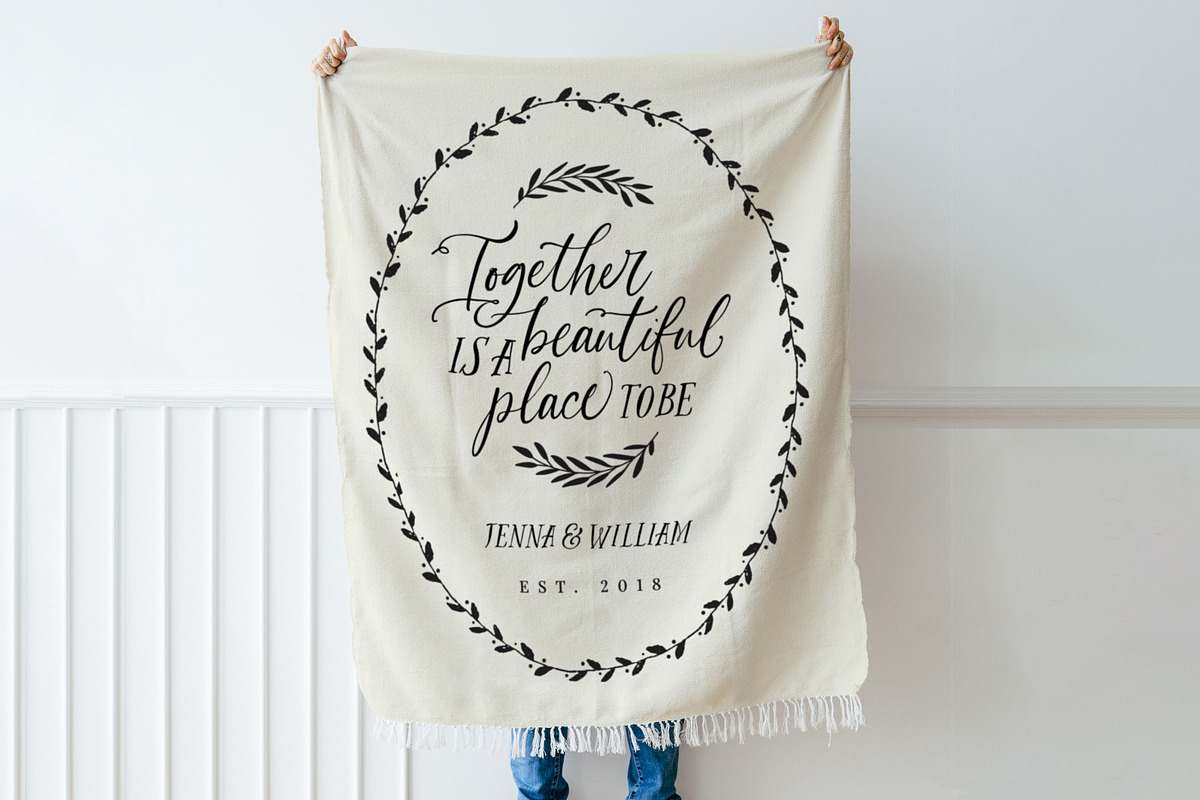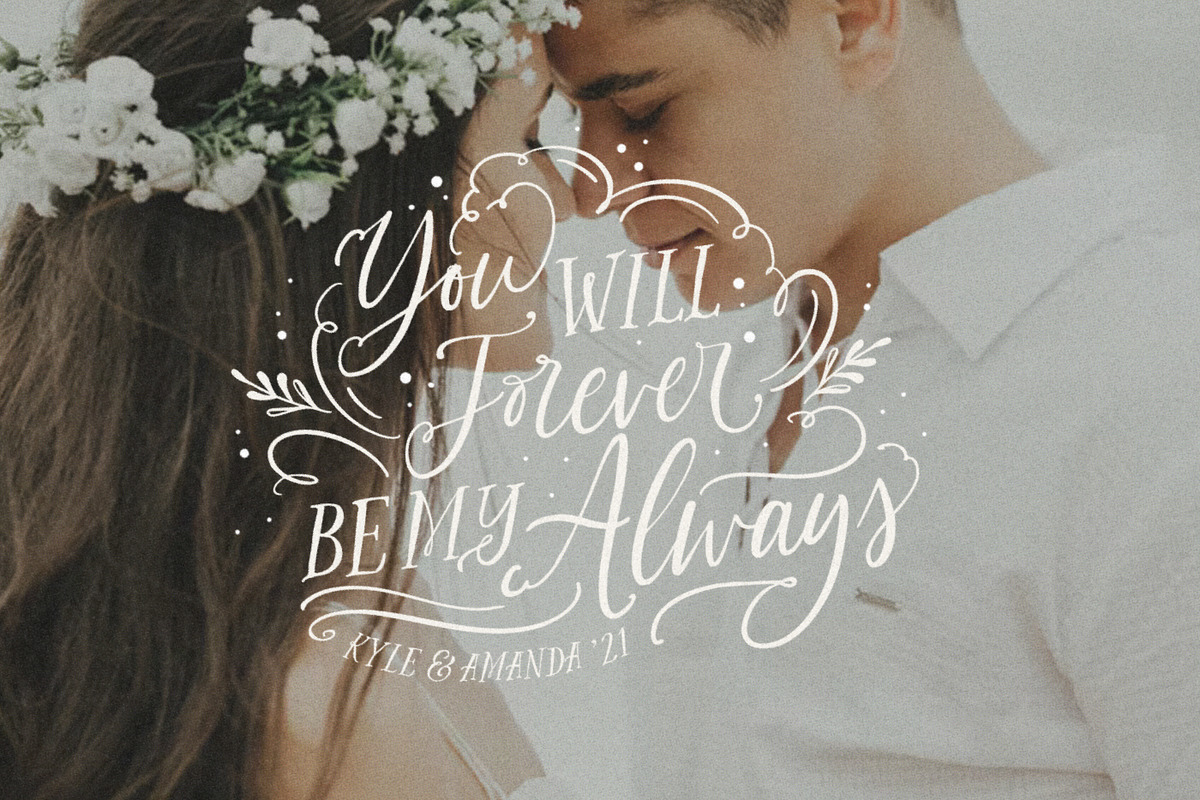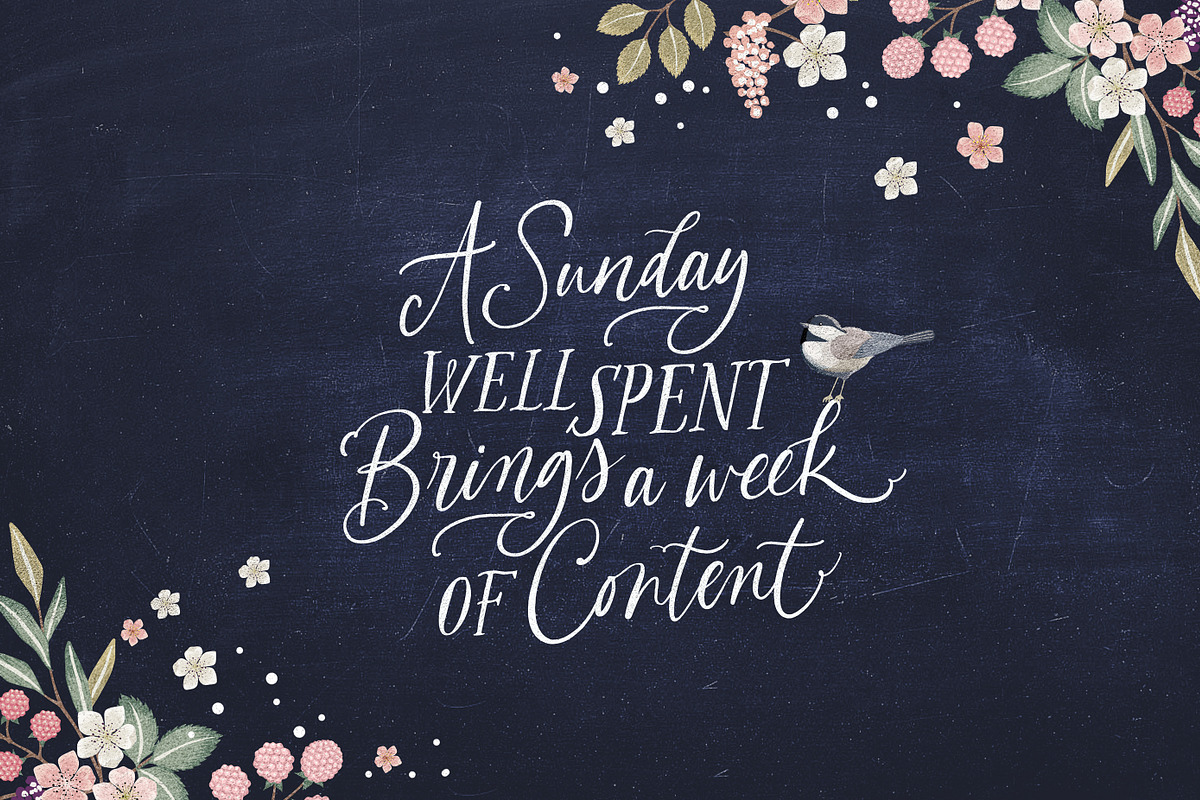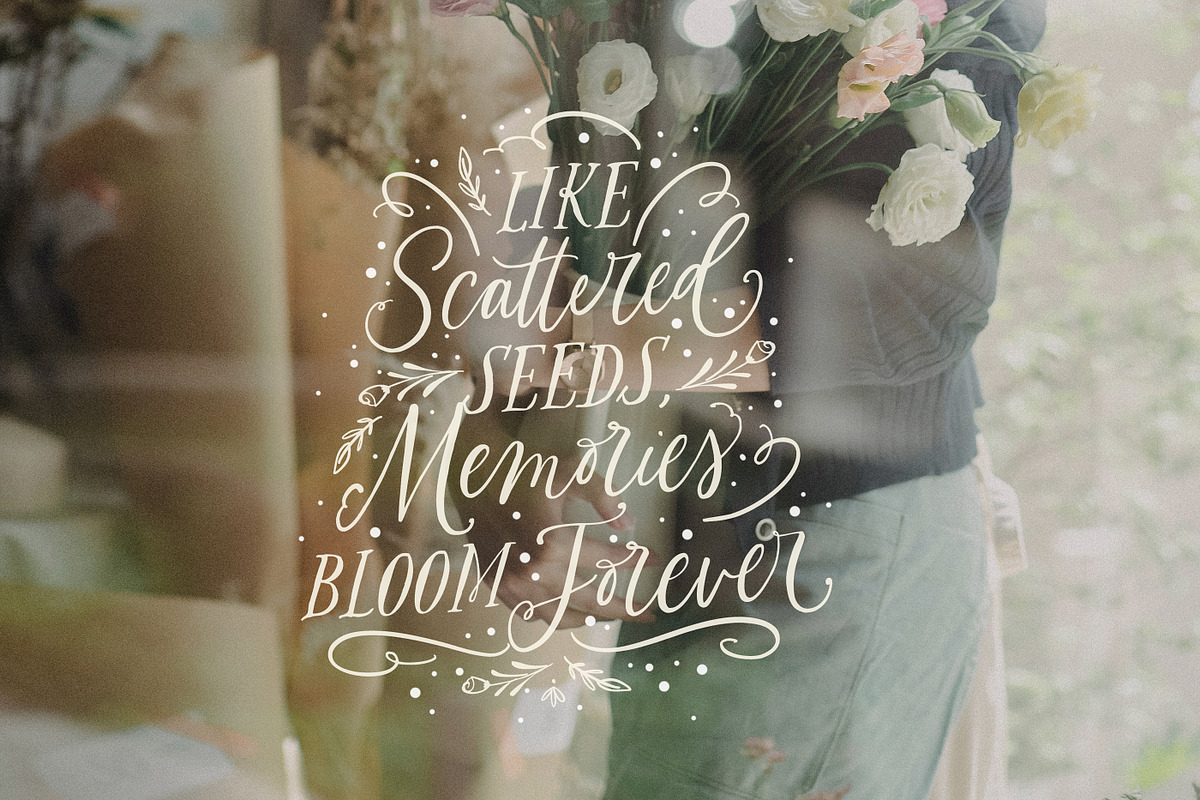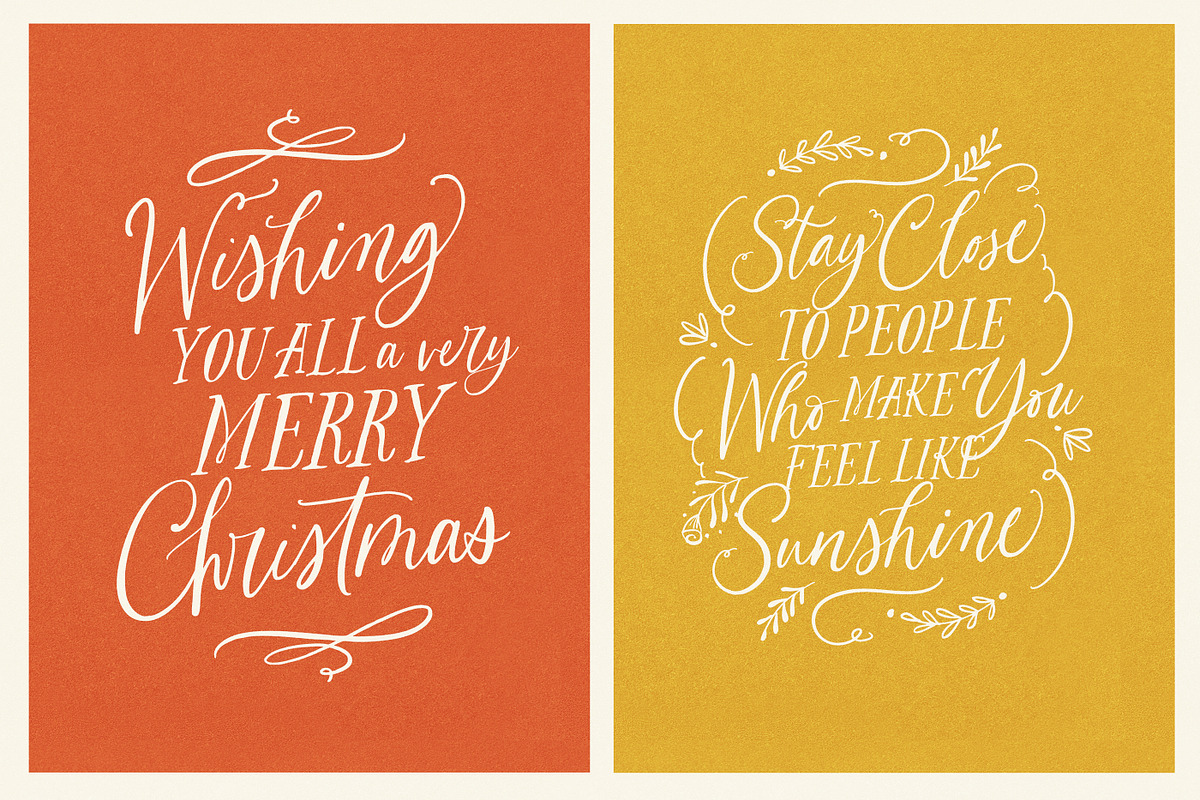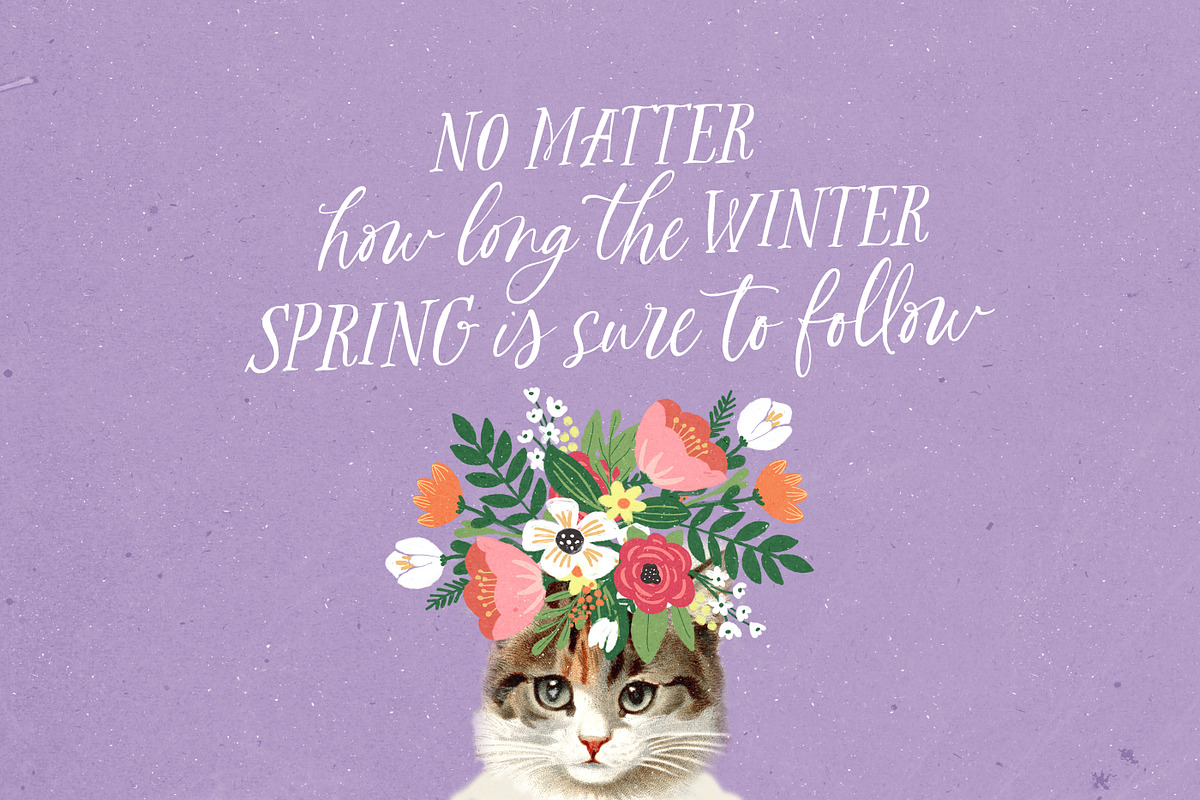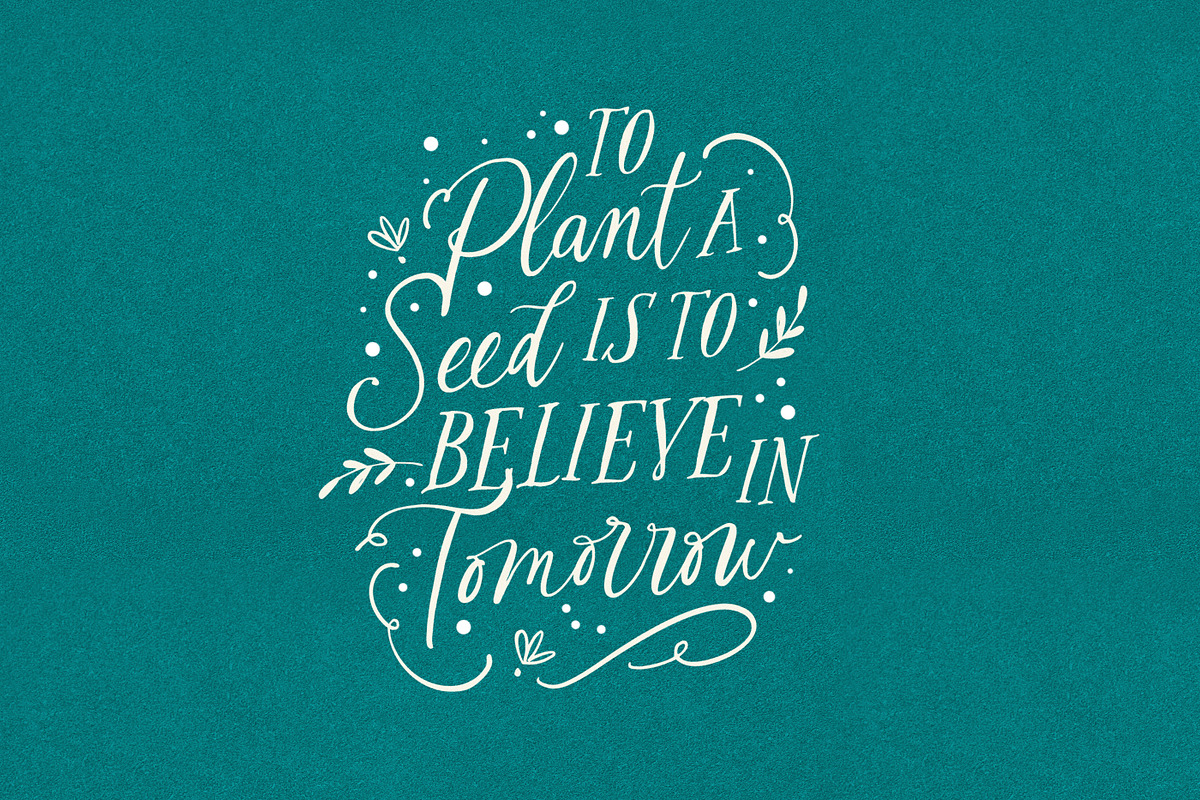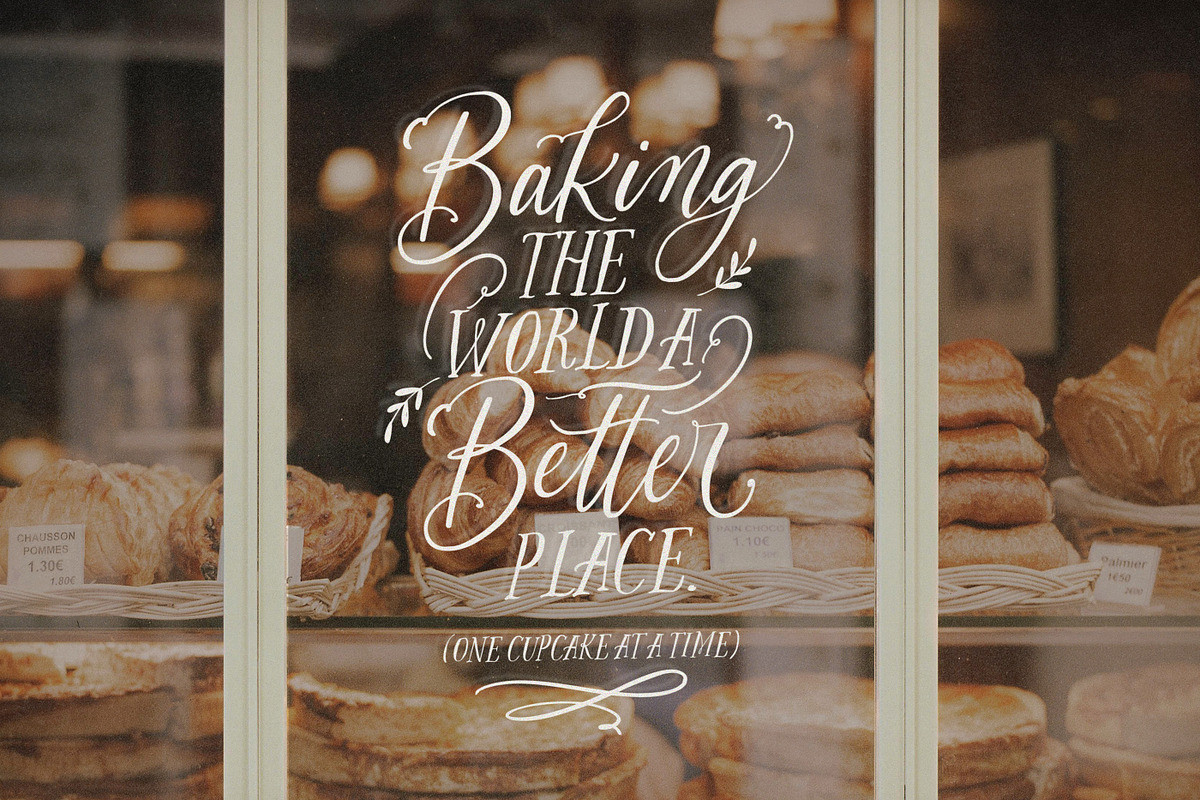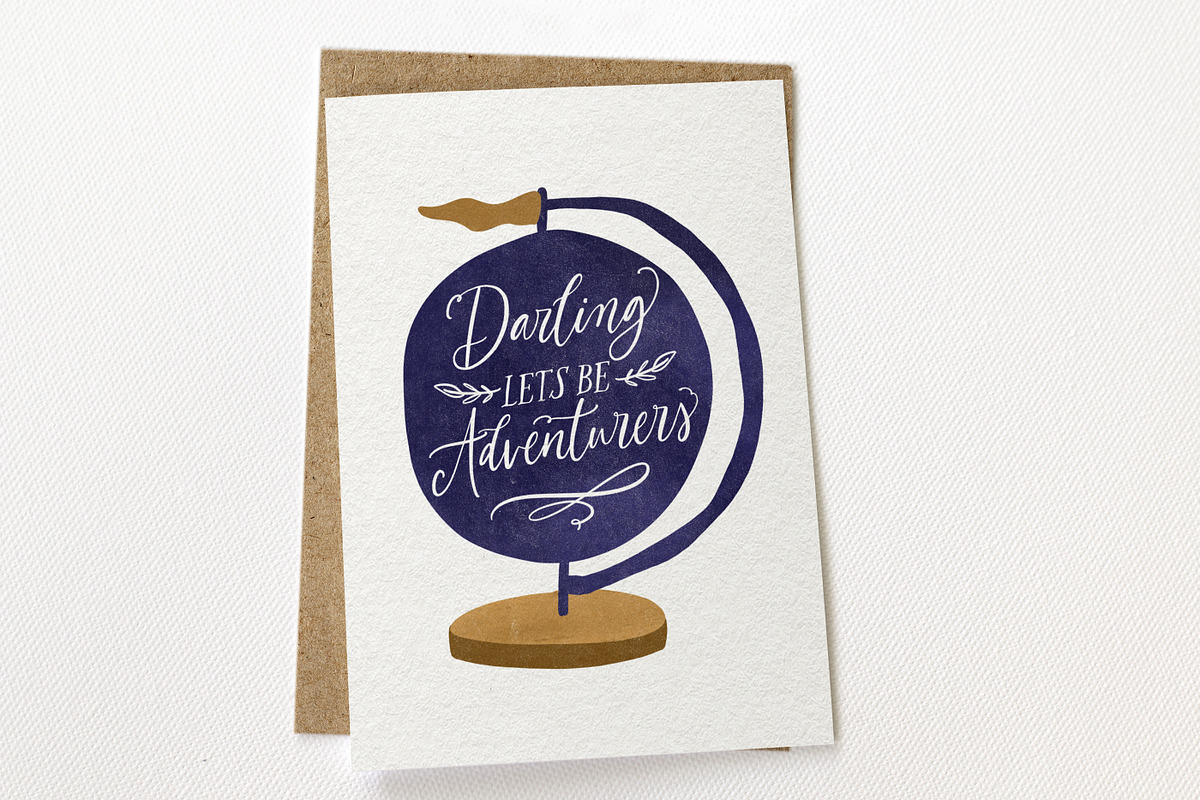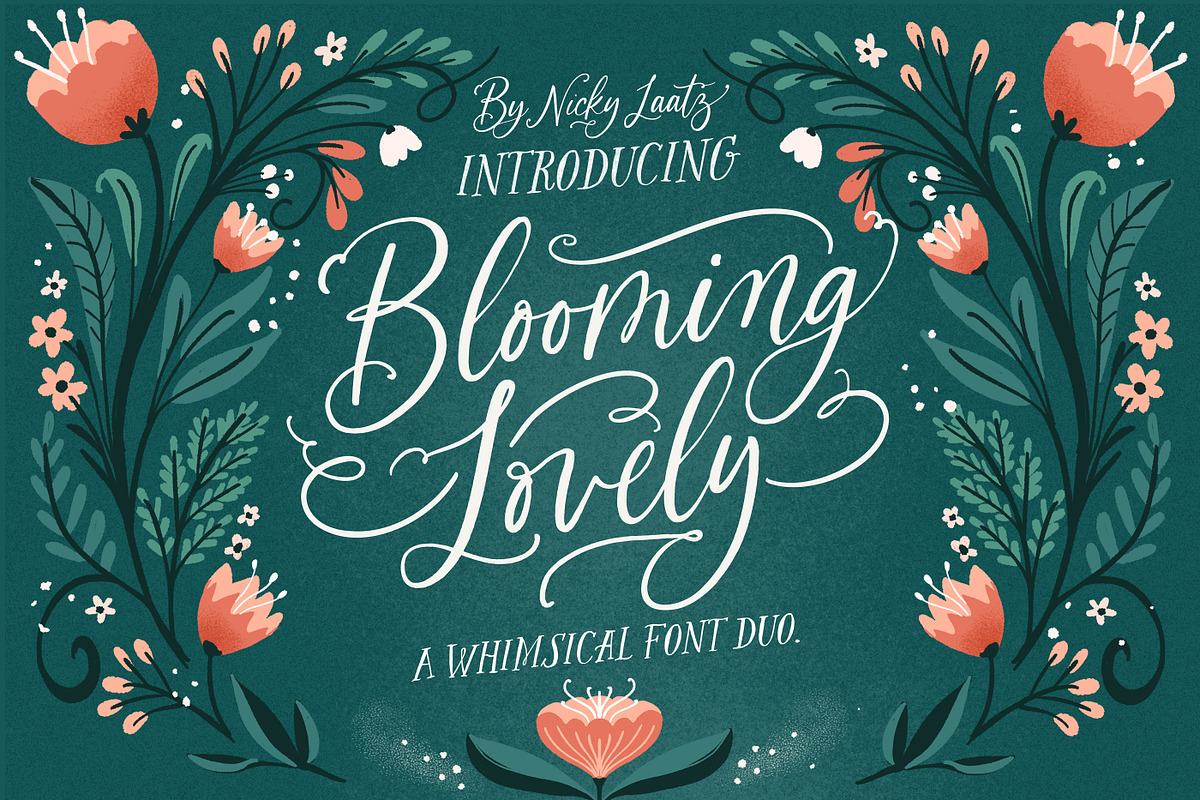
The Blooming Lovely Font Duo
Say hello to The Blooming Lovely Font Duo! Whimsical handwritten calligraphy coupled with a charming all caps serif, make this pair a match made in heaven. 167 included Opentype Stylish Alternate letters and ligatures, allow you to mould your type design any way you like:) It also includes a fancy little bonus ornaments font with 68 flourishes, frills and foliage, to add that special extra touch, and fill in any open spaces in your type design.
Made using real handwritten calligraphy - the wobbly imperfect edges have been left unrefined to add authenticity to the look of the fonts. Please note that due to the rougher edging of the fonts, this duo will not be suitable for using with cutting machines, especially at smaller cut sizes.